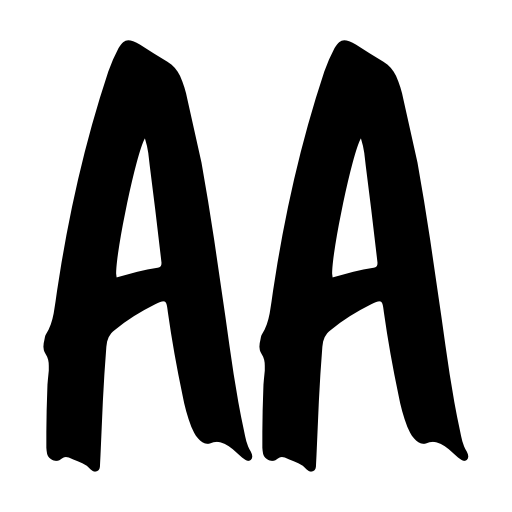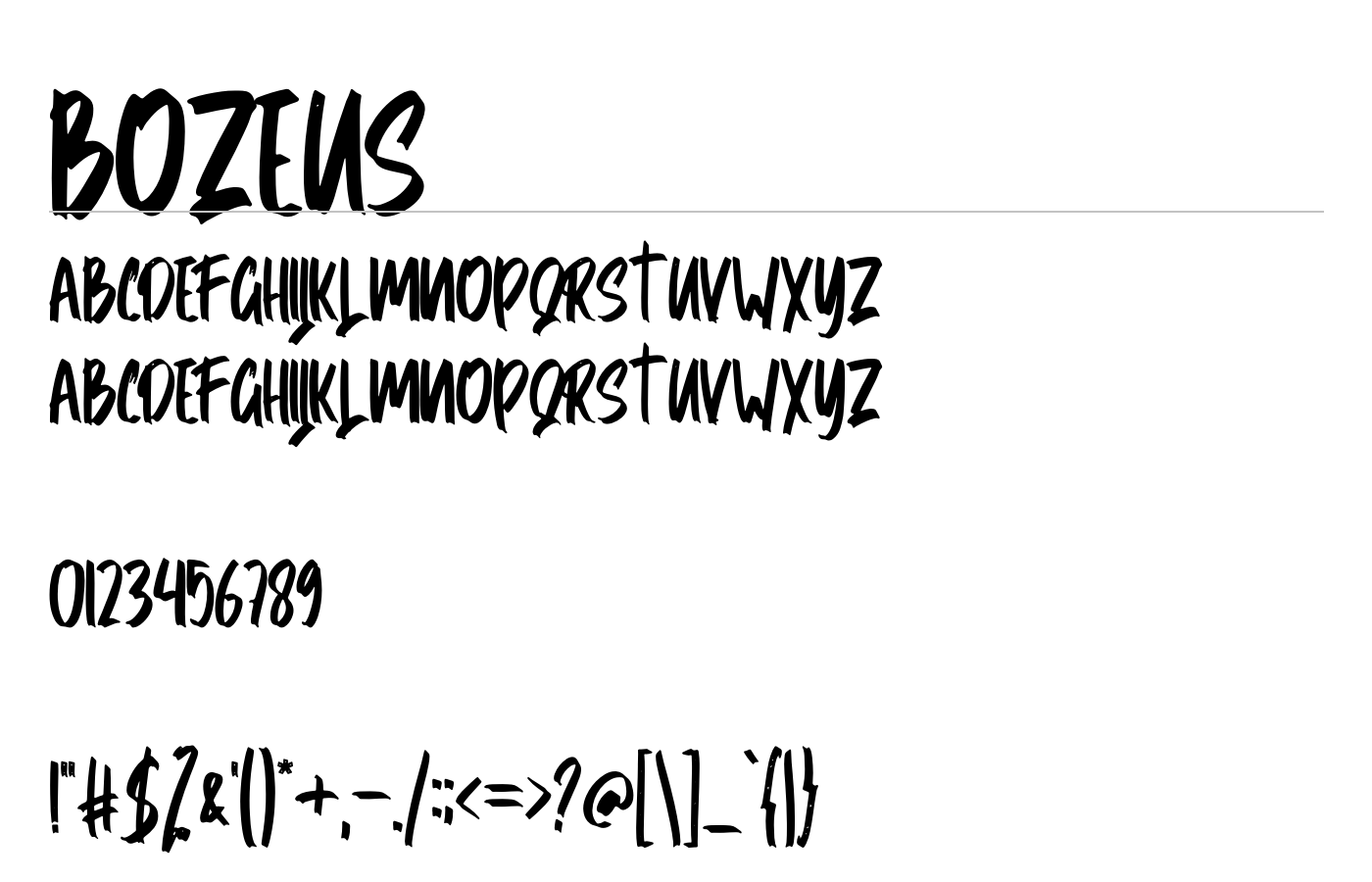
Bozeus is a bold, hand-drawn script font with a playful and energetic vibe, featuring irregular, brush-like strokes that give it a dynamic and casual feel. Its tall, narrow letterforms with sharp edges and unique character shapes make it ideal for creative projects, youth-focused branding, and eye-catching headlines where personality and attitude are key. This font works best in designs that want to convey a sense of spontaneity, fun, and artistic flair.
Bozeus Font
About Bozeus Font